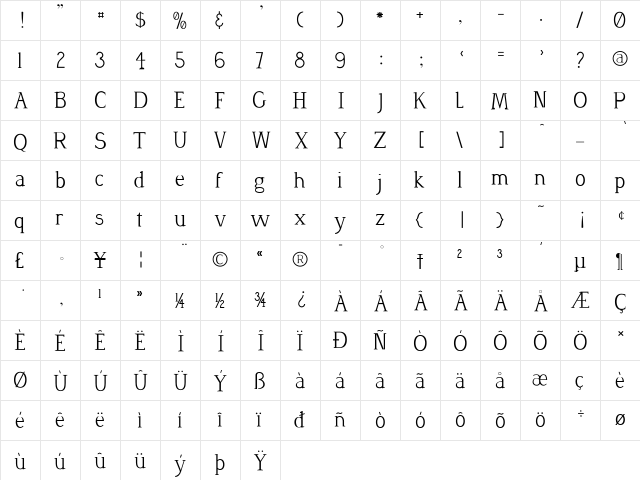
Desmond Medium
Desmond takes a measured approach to typography — its balanced proportions and neutral character make it a reliable workhorse for both digital and print work.
Pro Tip: Use Desmond in both headline and body roles to test its range before committing to a single application.